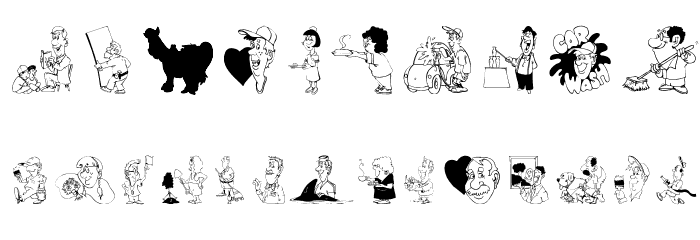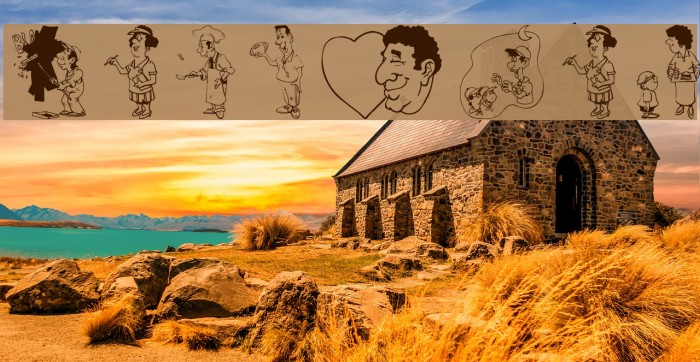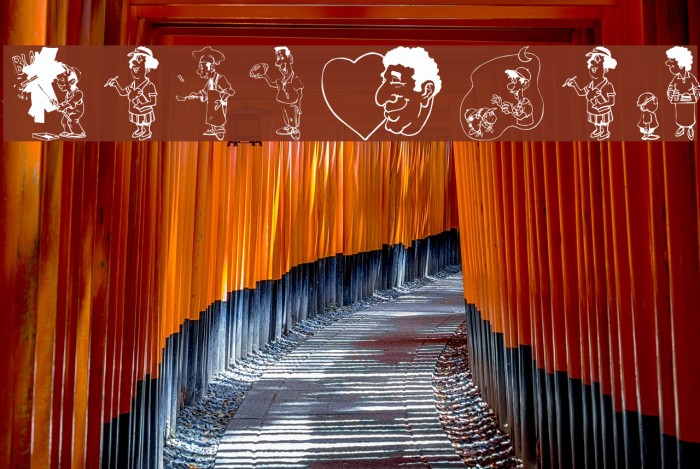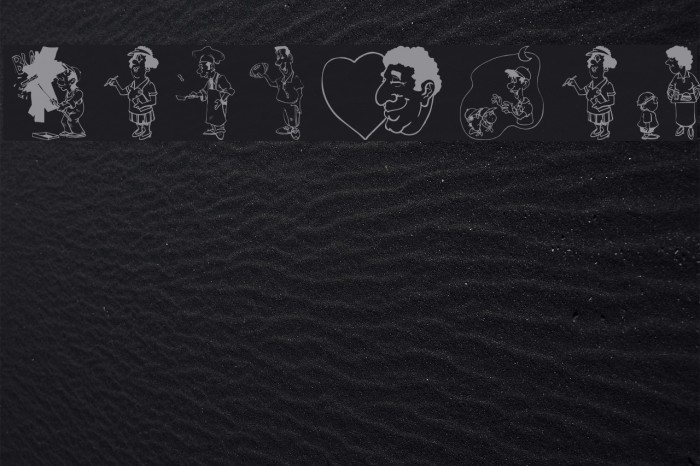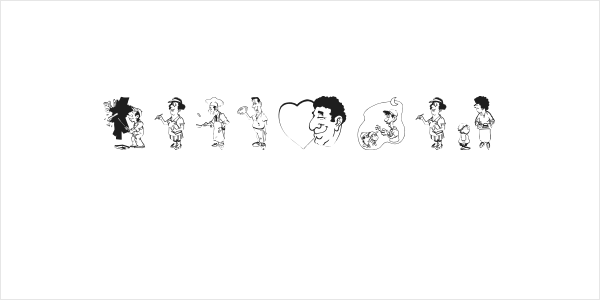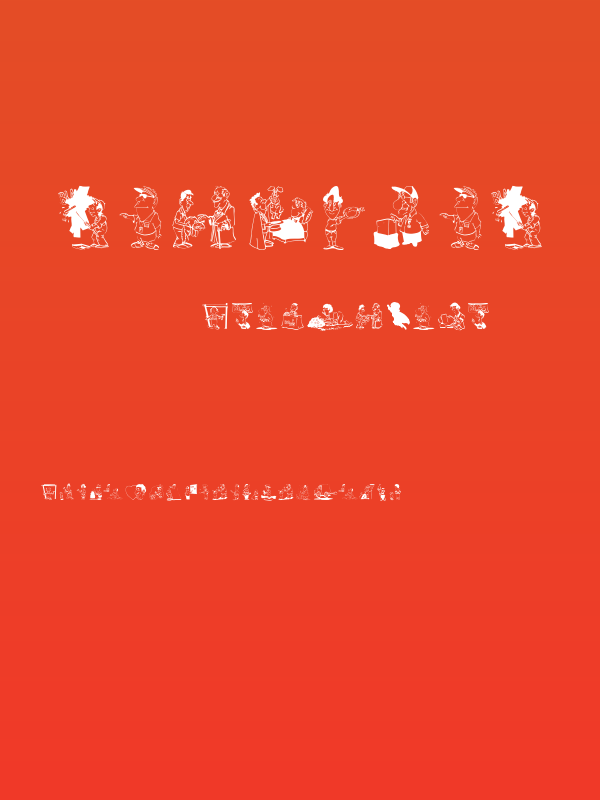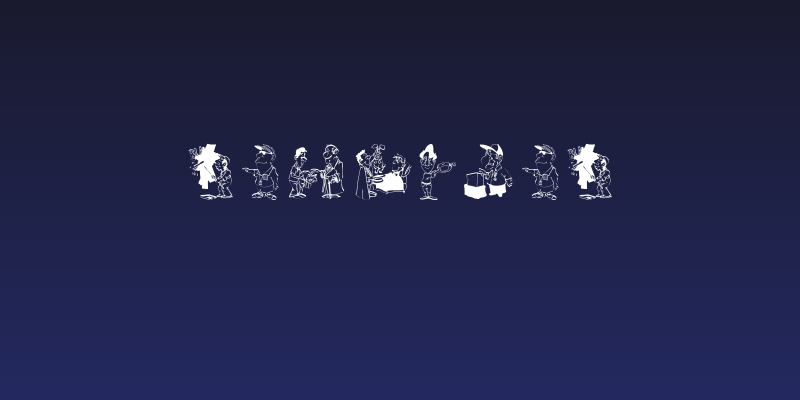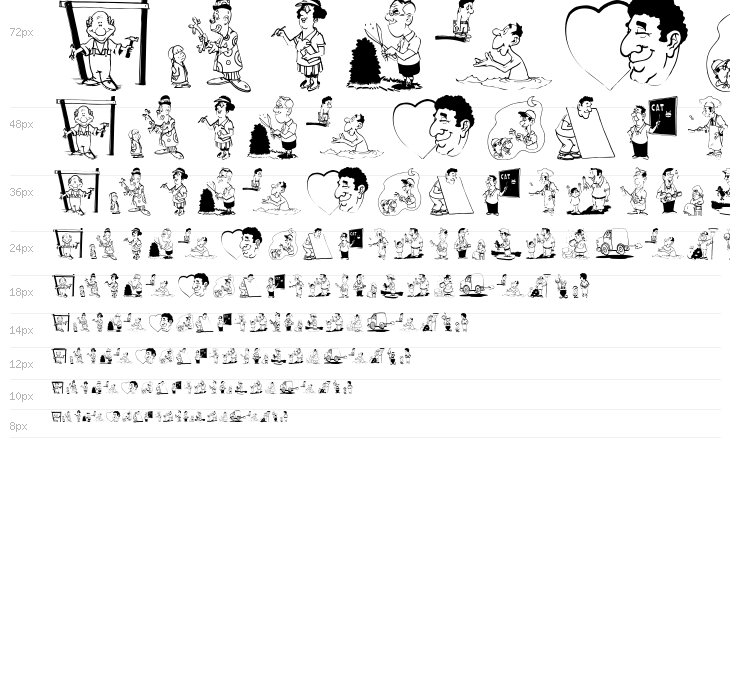
Services Font
Services Description
A playful, hand-drawn cartoon style featuring whimsical illustrations for each character, with exaggerated expressions and dynamic poses. The glyphs are highly decorative, prioritizing visual storytelling over typographic clarity.
| Overall Style | Decorative, Playful, Cartoonish |
| Use Case | Headlines, Posters, Themed graphics, ChildrenΓ’β¬β’s materials |
| Proposed Projects | ChildrenΓ’β¬β’s books, event flyers, party invitations, comic strips, playful branding. |